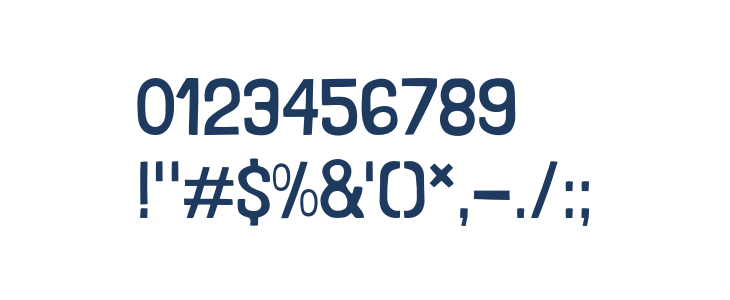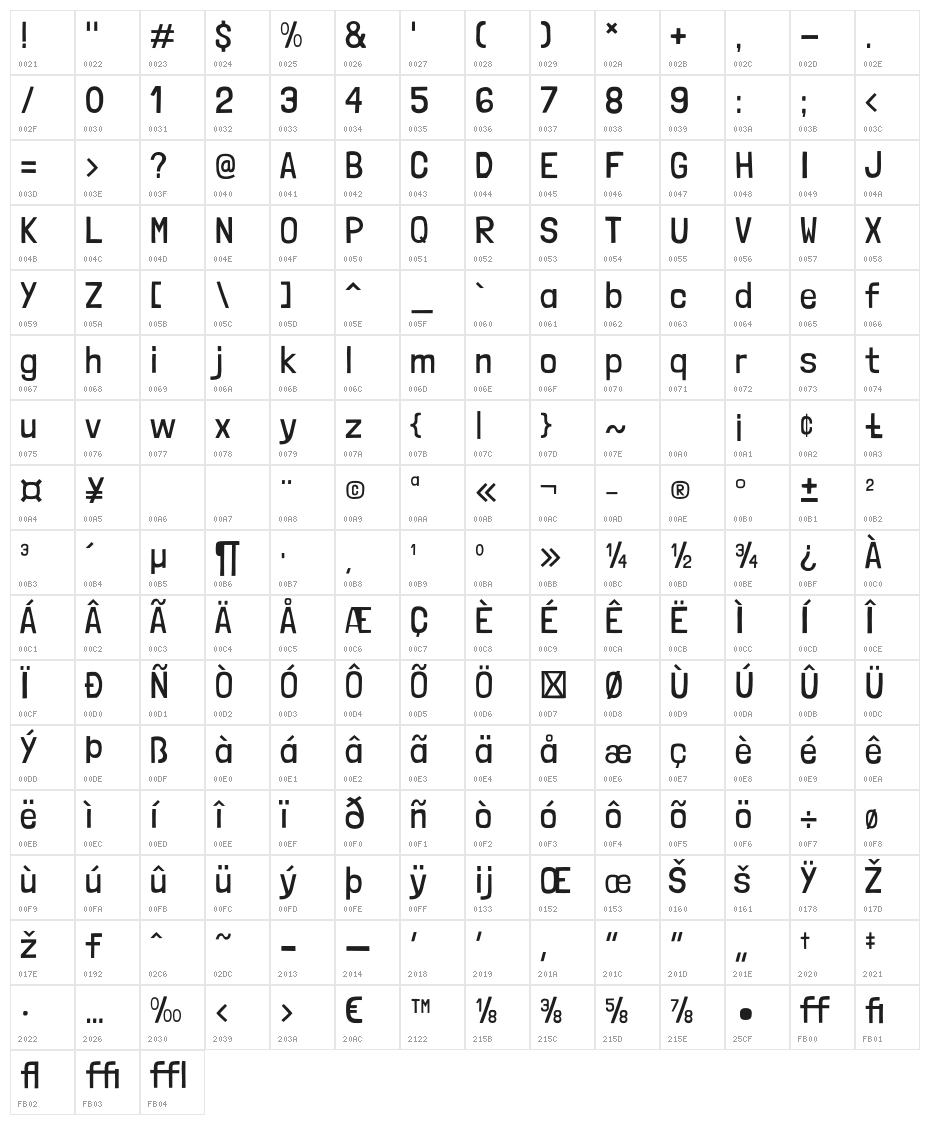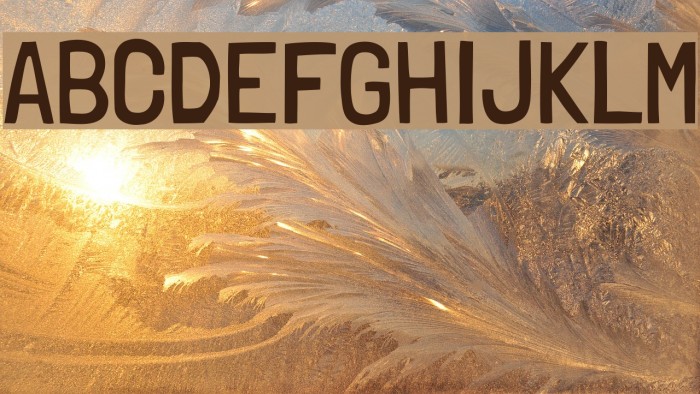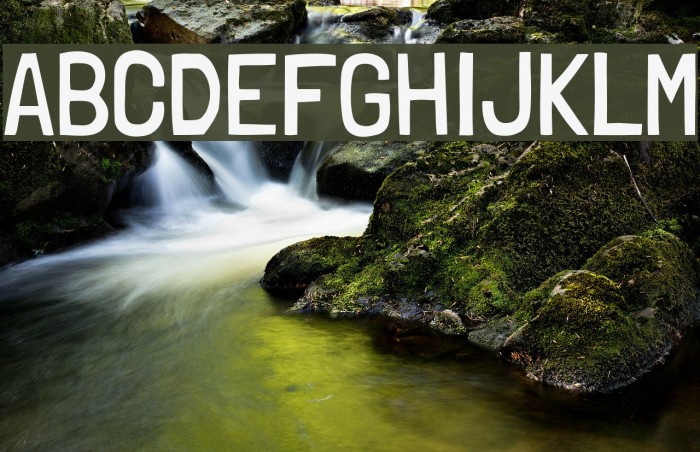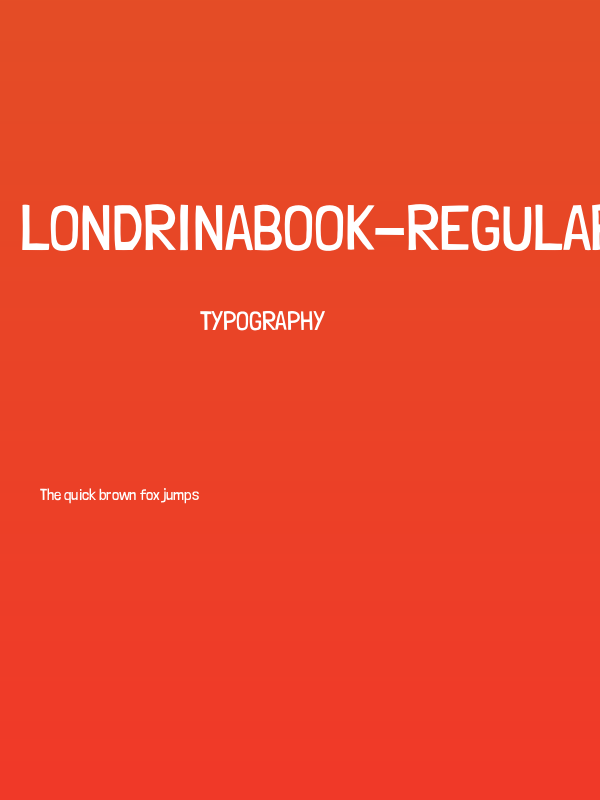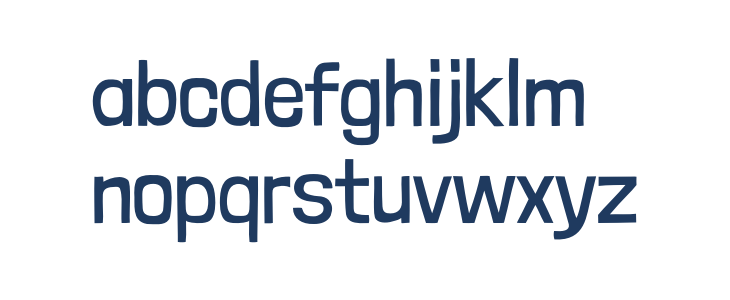
LondrinaBook-Regular Font
| Stile generale | Playful, Informal |
| Progetti proposti | Ideal for children's books, playful branding, posters, and creative invitations. |